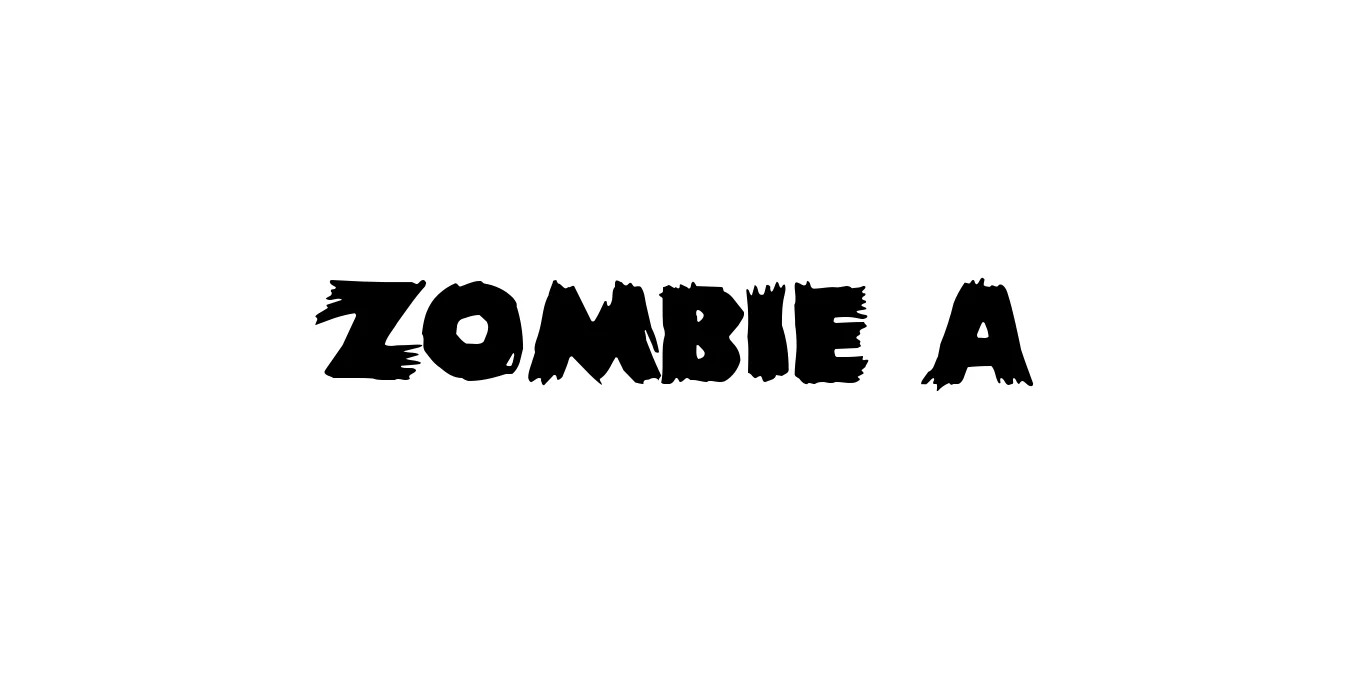
Zombie A
Designed by Måns Grebäck
| Category | Horror / Display |
| Designer | Måns Grebäck |
Zombie A is a raw and aggressive display typeface created by the prolific font designer Måns Grebäck. Specifically crafted to evoke themes of horror, decay, and the undead, this font features heavy, distorted strokes that appear as if they were painted in a state of panic or decay. Its high-impact visual style makes it one of the most recognizable choices for designers looking to inject a sense of grit and terror into their creative projects.
The anatomy of Zombie A includes splatter-like details and irregular, jagged edges that simulate the look of weathered signage or a classic horror film title. It is built for maximum legibility even with its heavy distressing, ensuring that your message is clear while maintaining a dark atmosphere. Whether used for digital media or print, this font excels in creating a visceral reaction and is a staple for thematic branding during the Halloween season and beyond.
Zombie A Best Uses
Excellent for horror and thriller film titles and promotional graphics.
Perfect for heavy metal band t-shirts and edgy street wear.
Ideal for survival horror game interfaces and loading screens.
Great for haunted house flyers and Halloween-themed party invitations.